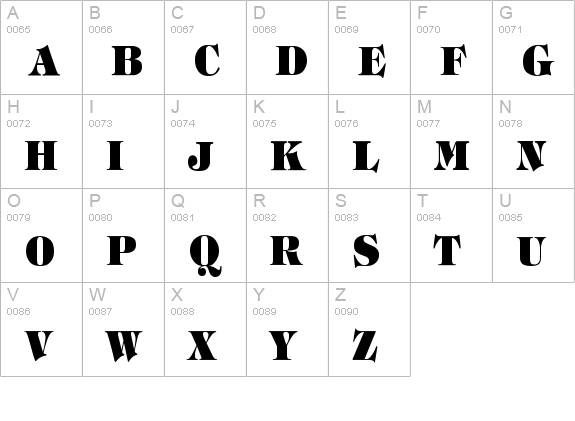
Tiffany-Heavy-Normal Th is a heavy, high-impact variant in the Tiffany typeface family \xE2\x80\x94 well suited to high-impact headlines, posters, and display advertising.
Tiffany-Heavy-Normal Th font is a striking display typeface that commands attention with its bold and powerful design. It exudes a sense of strength and confidence, making it perfect for headlines, logos, and other impactful design projects. This font features thick and heavy letterforms that are meticulously crafted to create a strong visual impact. The thick strokes and sharp edges give it a robust and solid appearance, while the clean and balanced letter spacing ensures readability even at large sizes. Tiffany-Heavy-Normal Th font is versatile and can be used in various design contexts. From posters and banners to packaging and branding materials, it adds a touch of boldness and sophistication to any project. One of the best things about Tiffany-Heavy-Normal Th font is that it is freely available to download at FontsMarket.com. This means that you can easily access and use this remarkable typeface without any cost. Whether you are a professional designer or a hobbyist, this font offers a high-quality design solution without breaking the bank. So, if you are looking to make a strong visual statement and add a touch of boldness to your design projects, look no further than Tiffany-Heavy-Normal Th font. Download it for free today at FontsMarket.com and unleash its power in your creative endeavors.